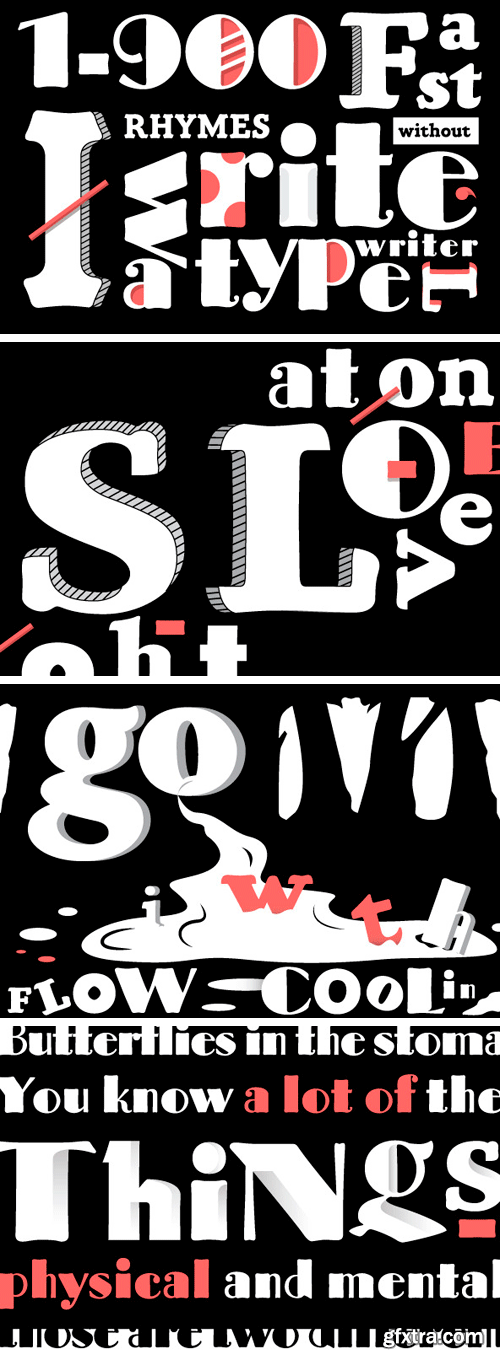
Showcard Collection Font Family
The Show Card collection of four poster fonts, Boadway Poster, Poster Gothic, Girder Poster, and Cooper Poster were all inspired by showcard lettering samples featured in the book, "Commercial Art of Show Card Lettering" by James Eisenberg, published by D. Van Nostrand Company in 1945. Each design's original incepton came out of theatrical poster studios of the mid 1900's in New York.